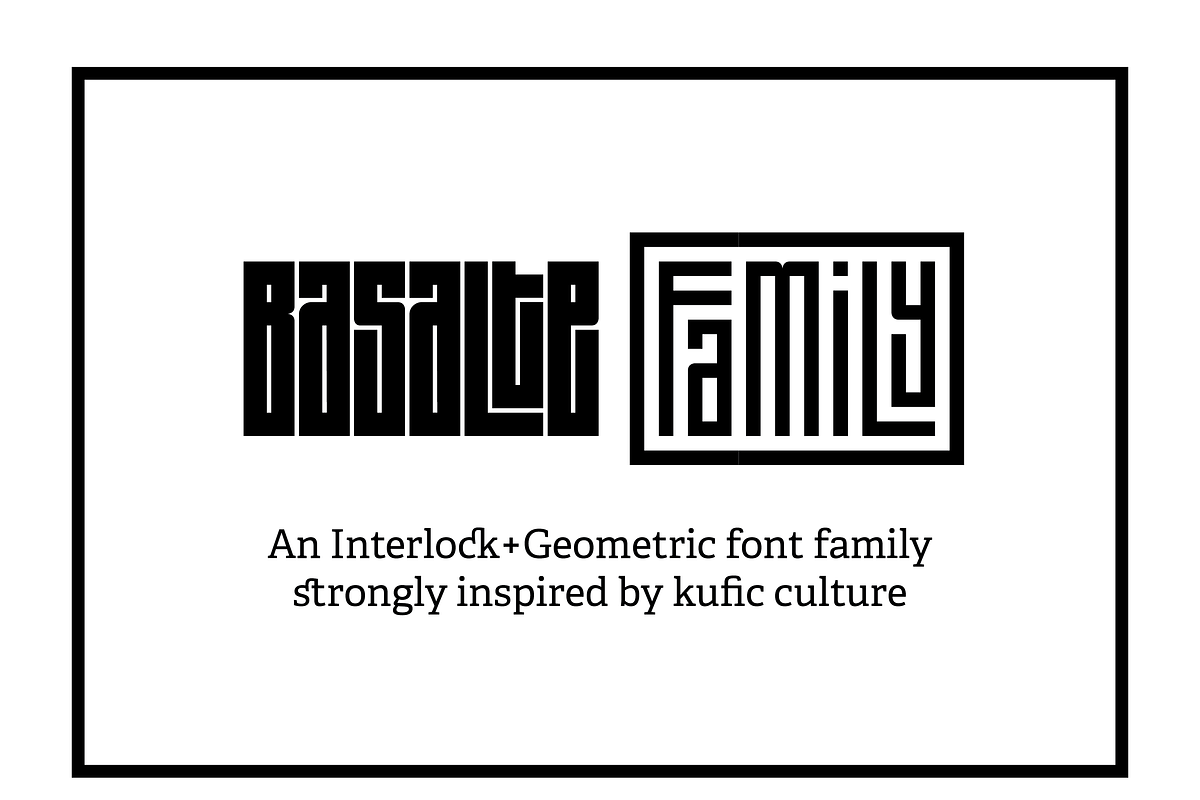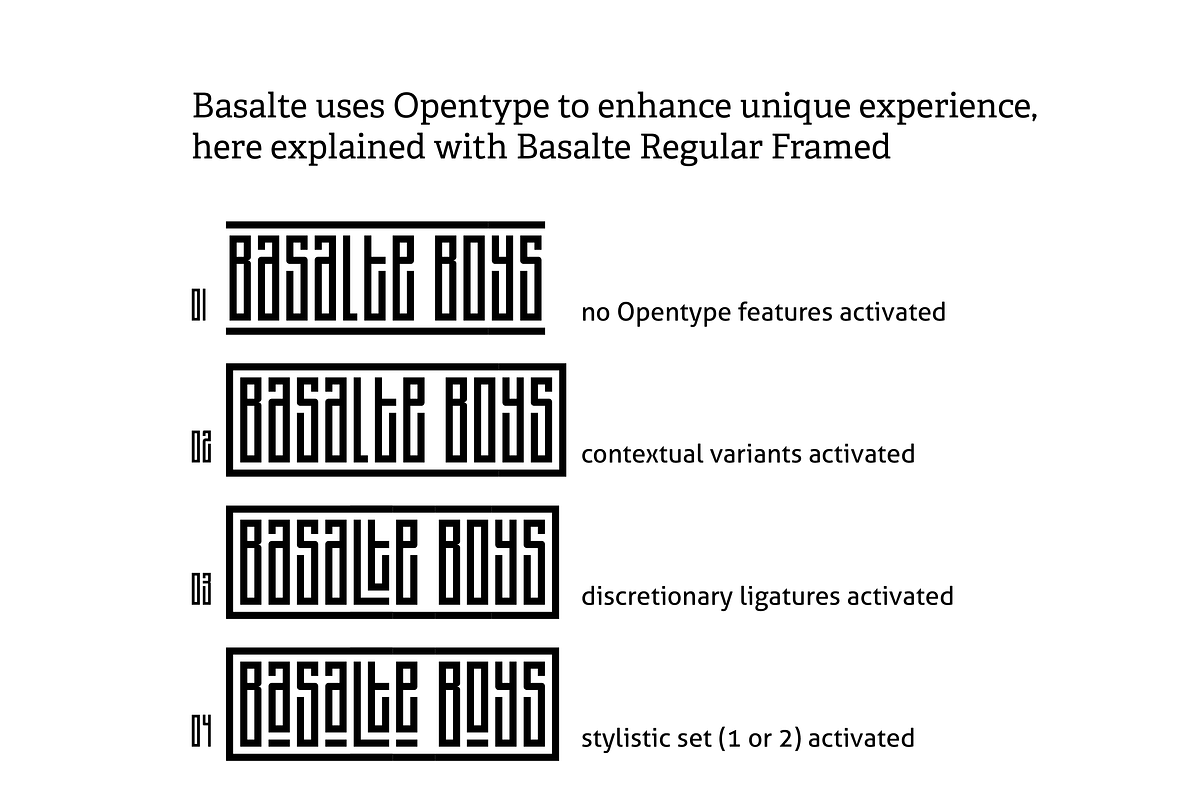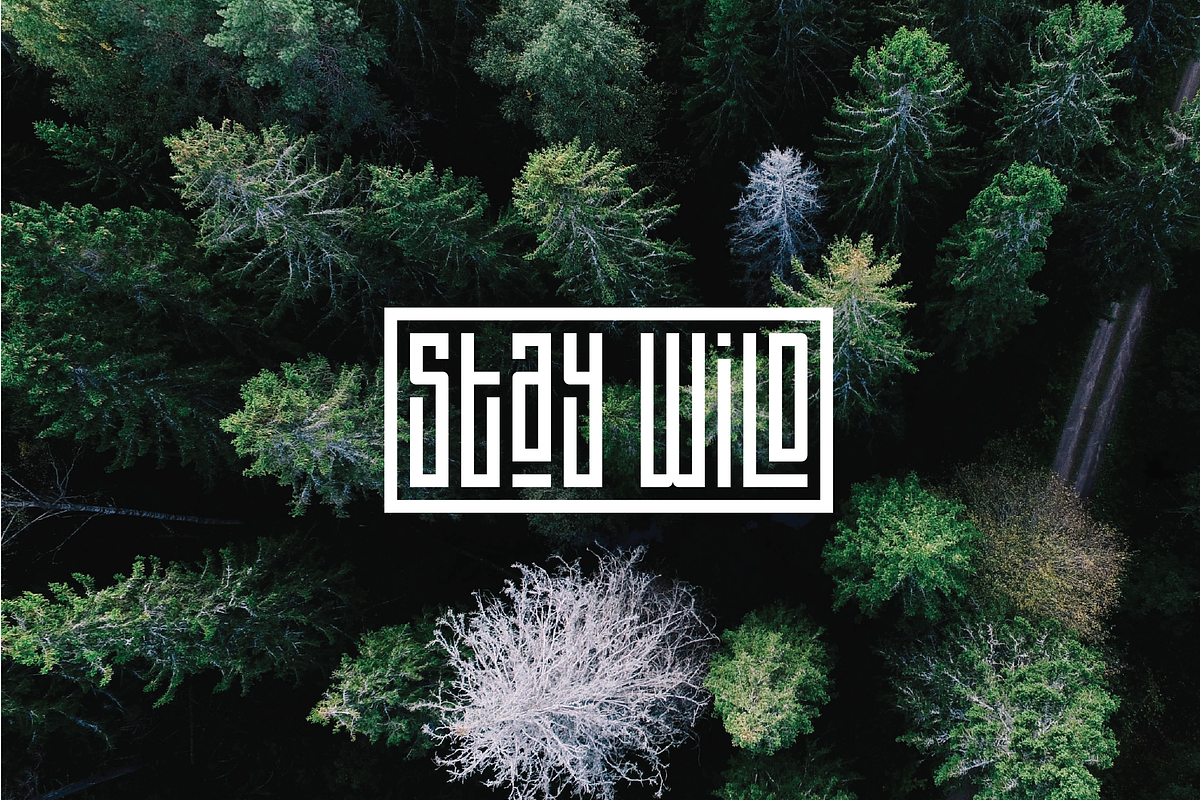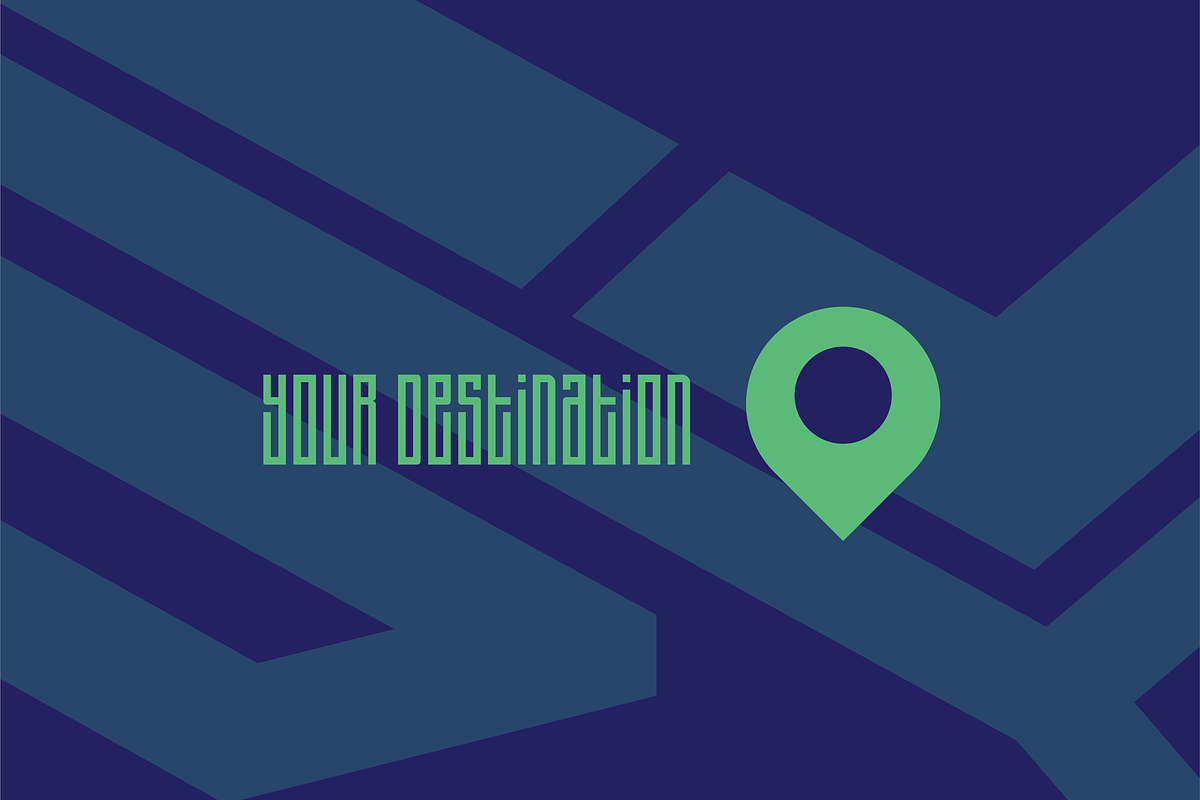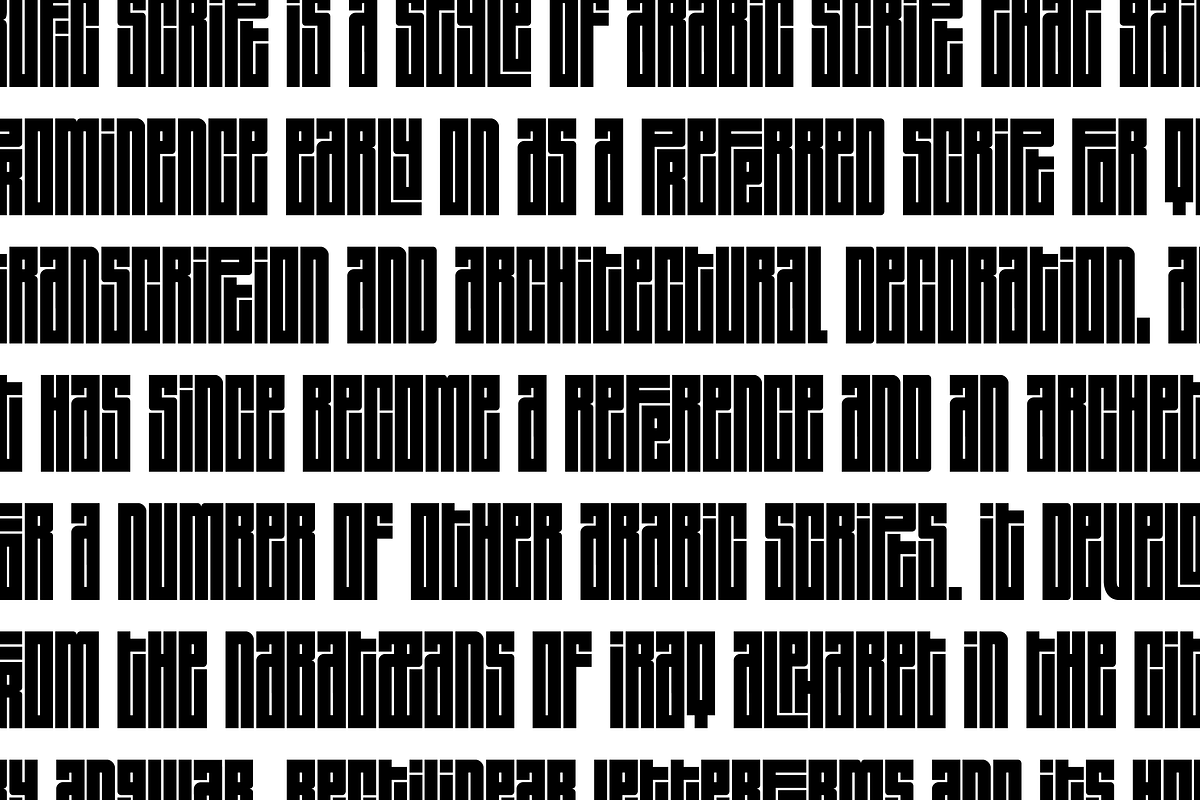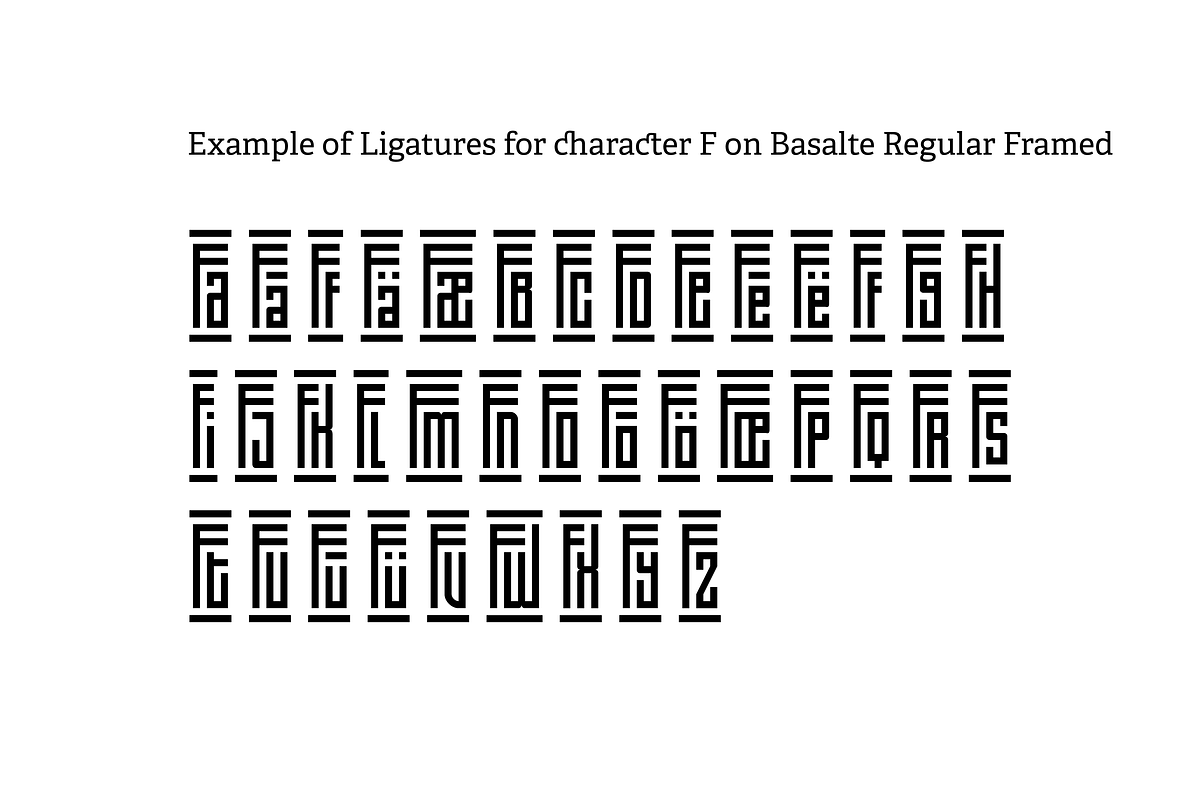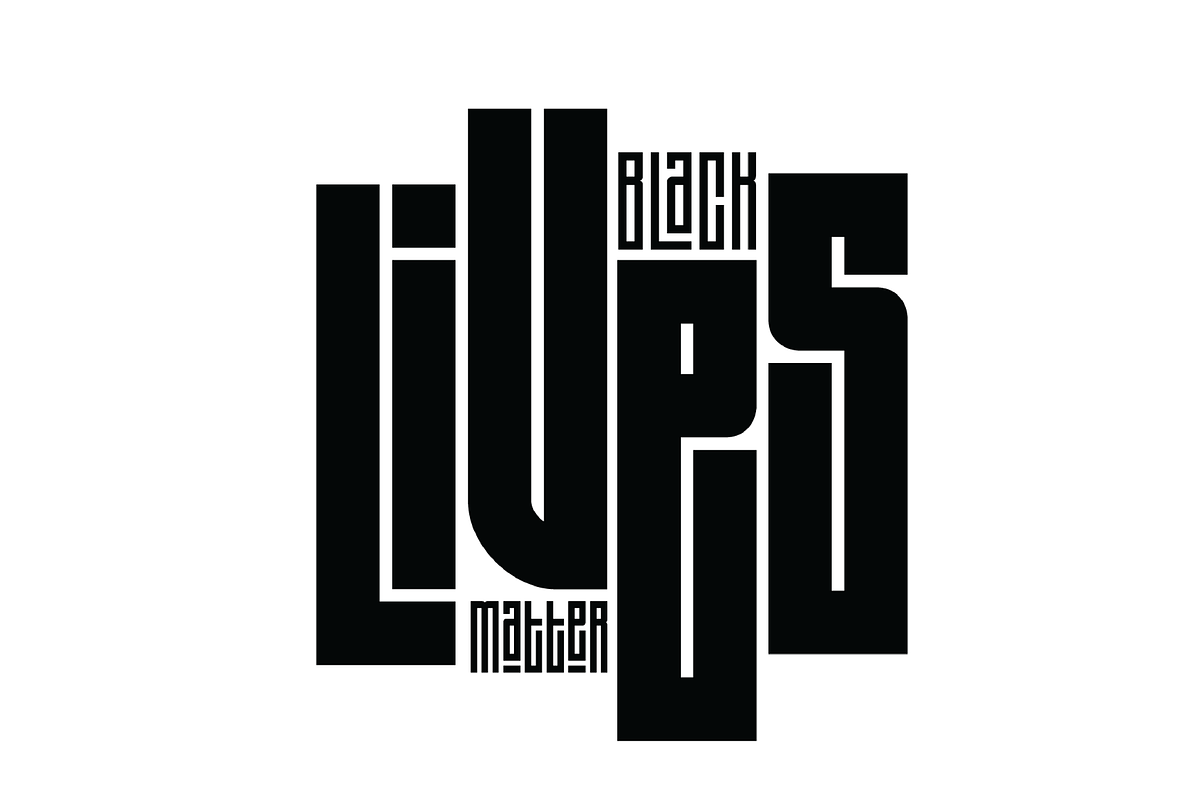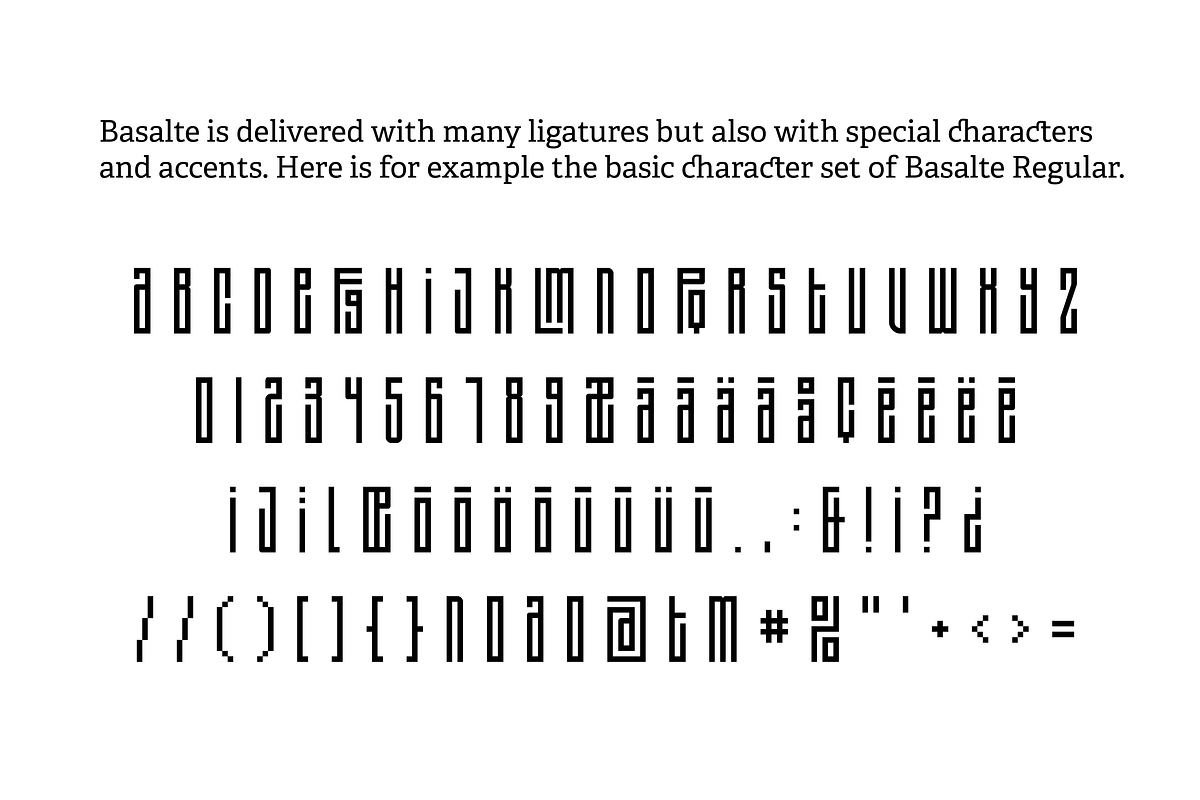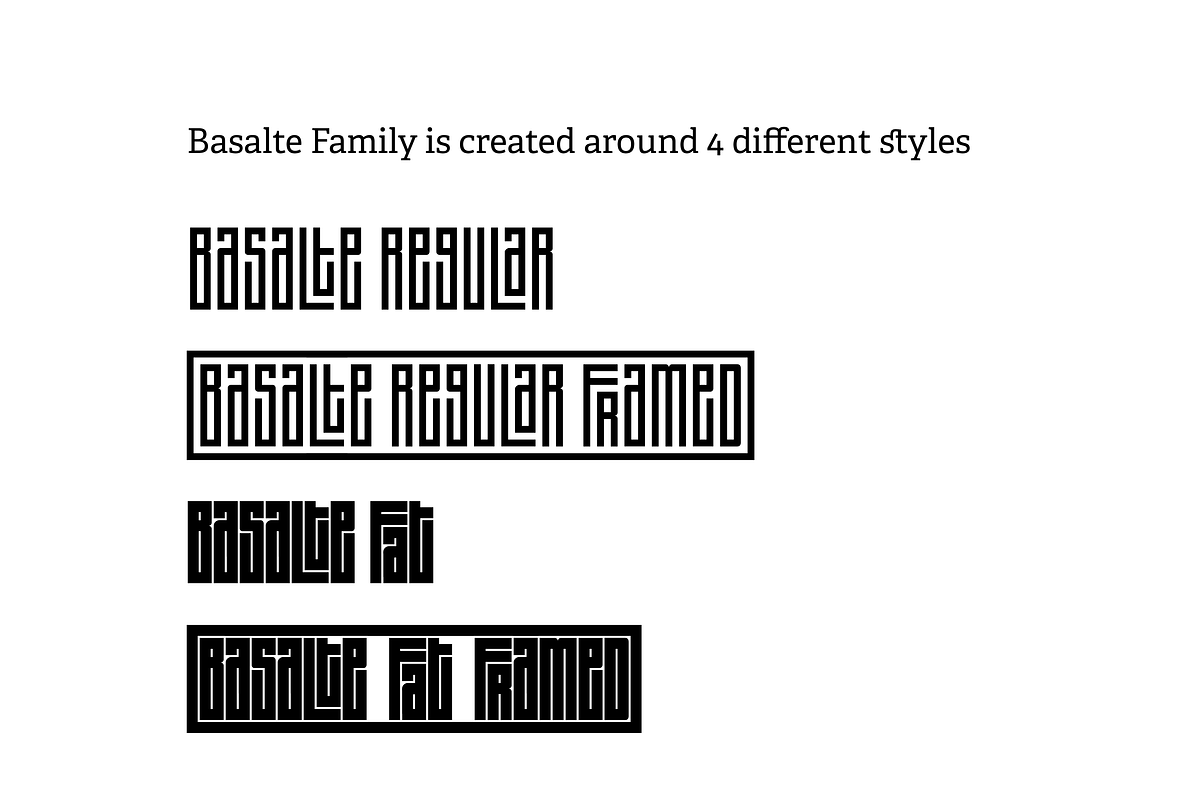
Basalte Fonts Family - 30% OFF!!
30%OFF in June!! Please meet Basalte, a great fonts family with 4 styles, inspired by Kufic calligraphic style. It has some great Opentype features that allows you to include interlock in your words. You can also add special characters and a frame. Basalte comes in 4 styles, 2 "regular" and 2 "fat" ones.30%